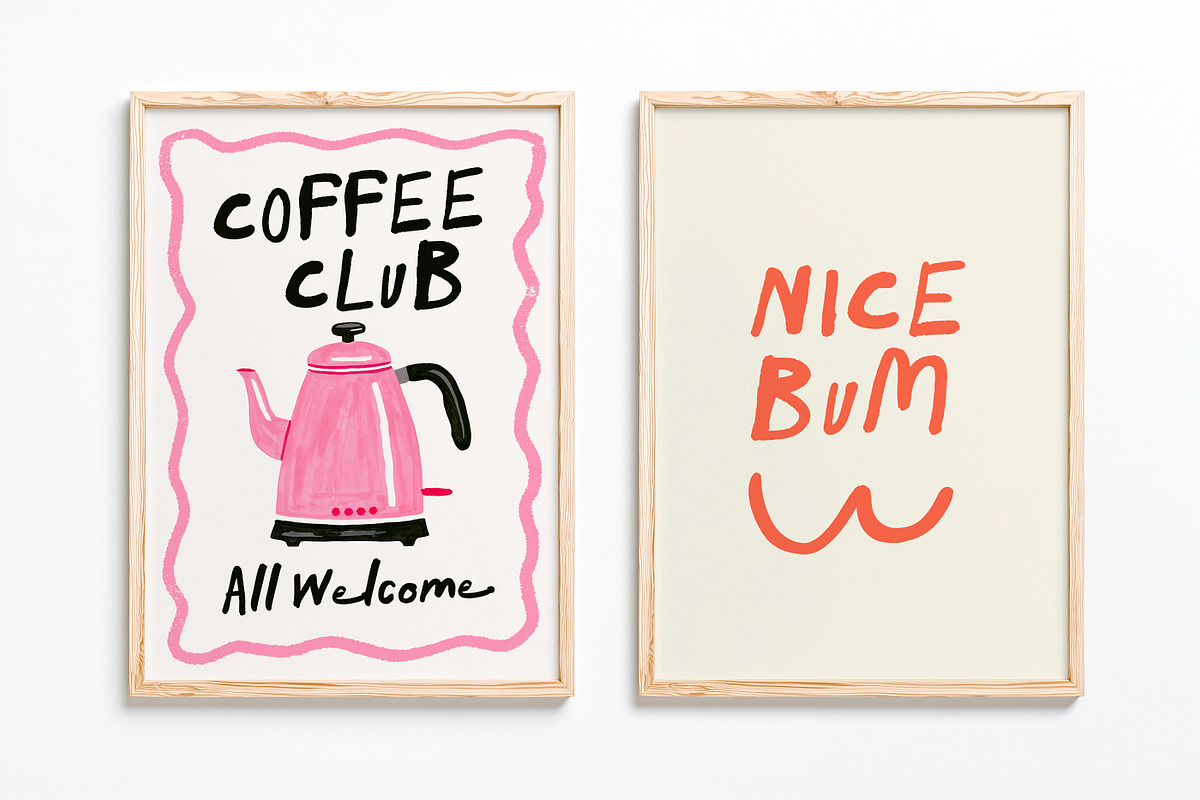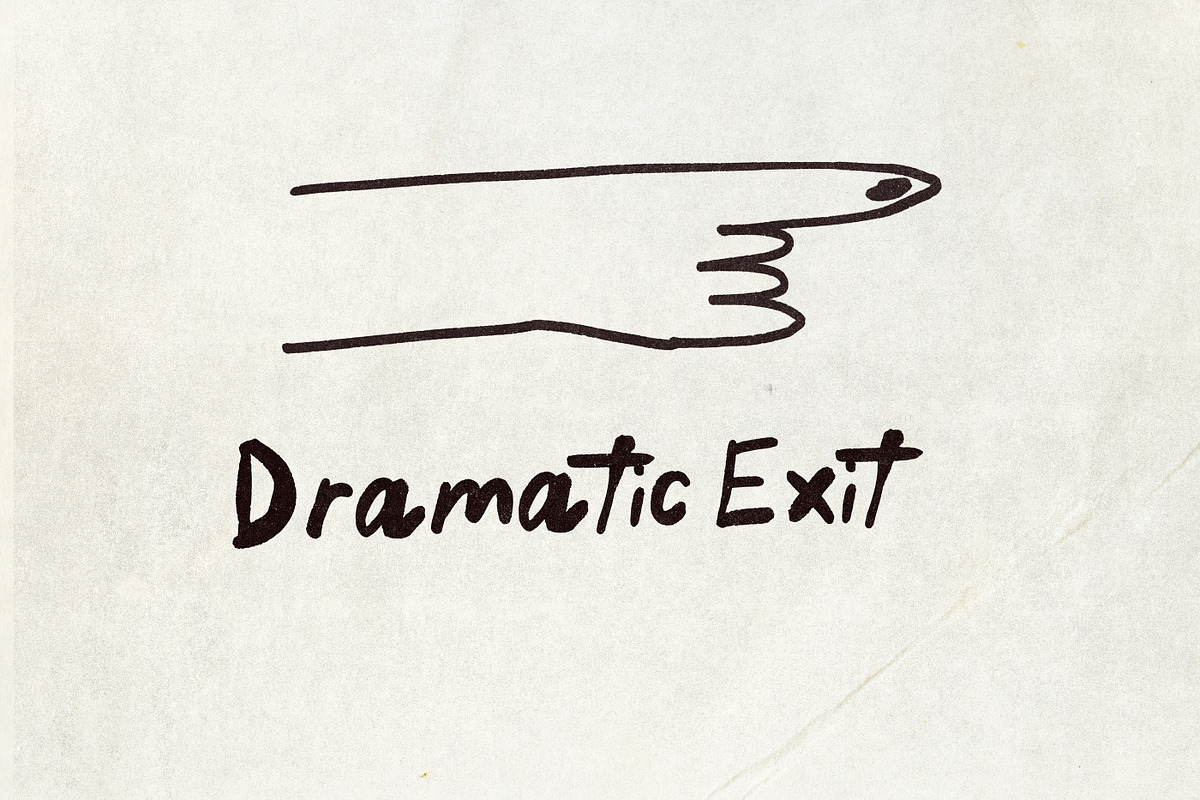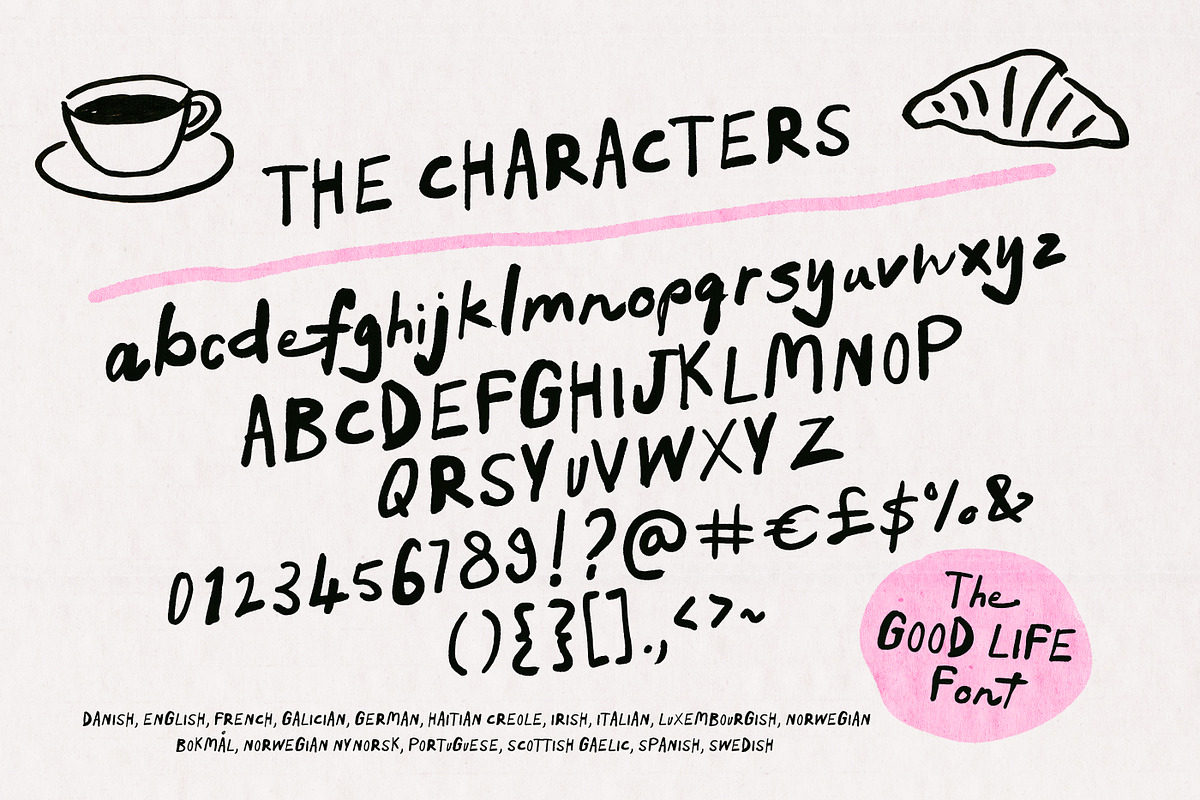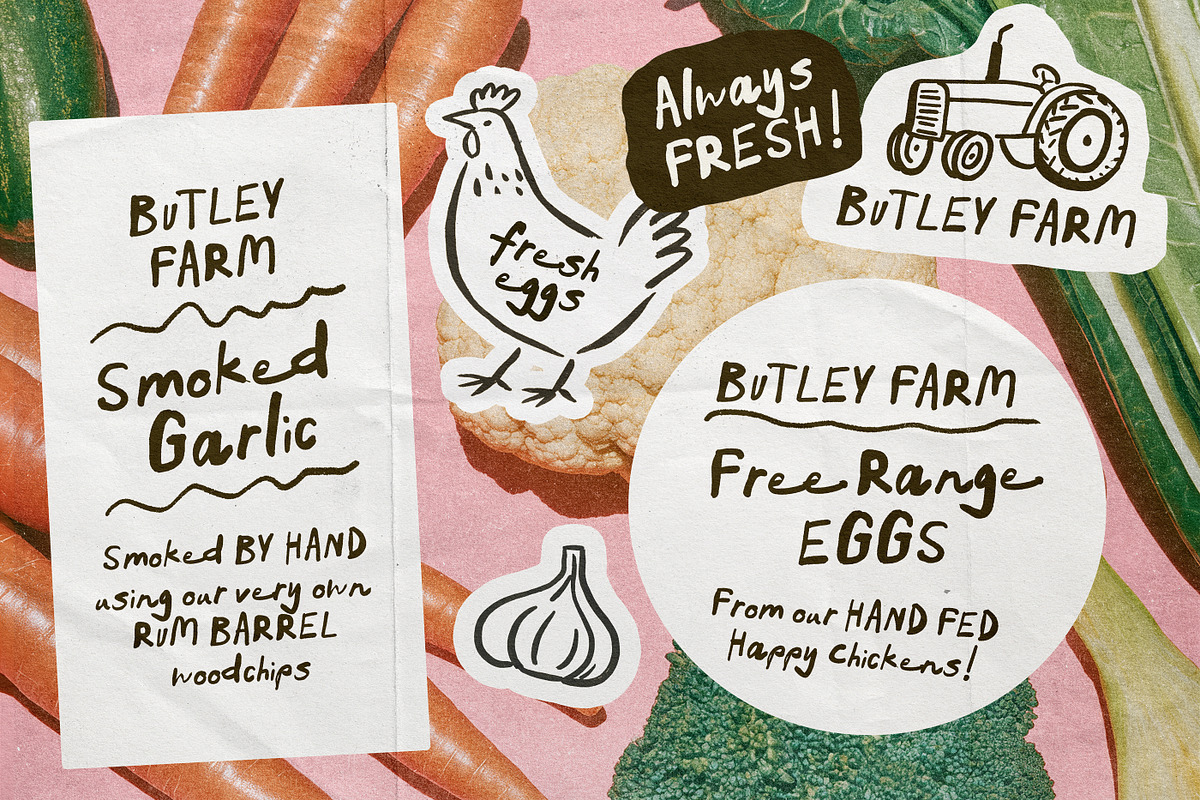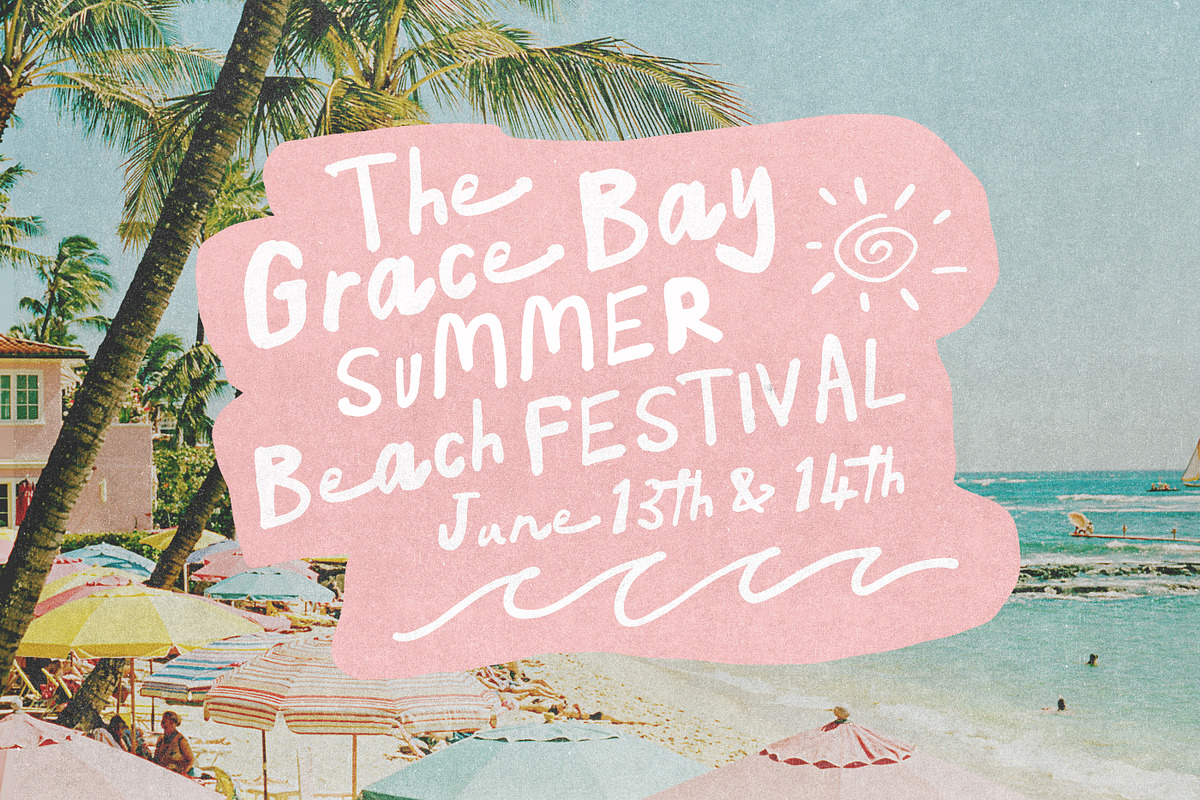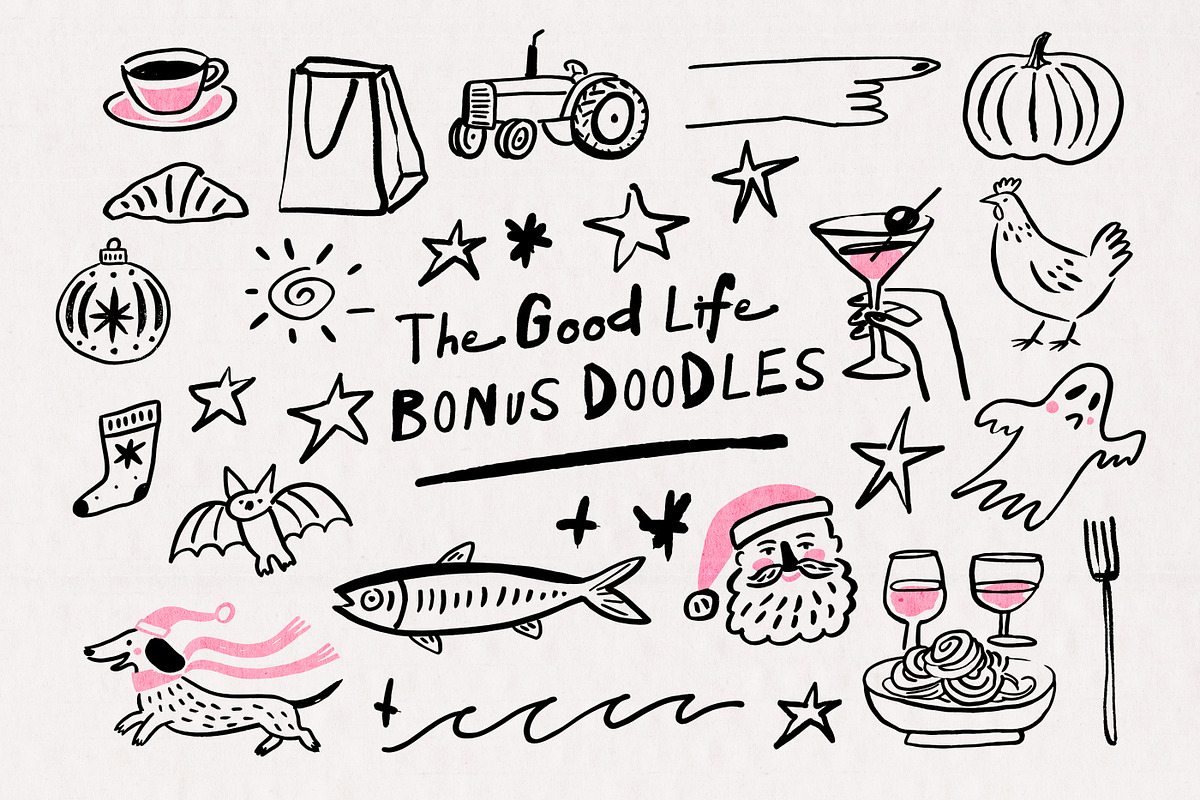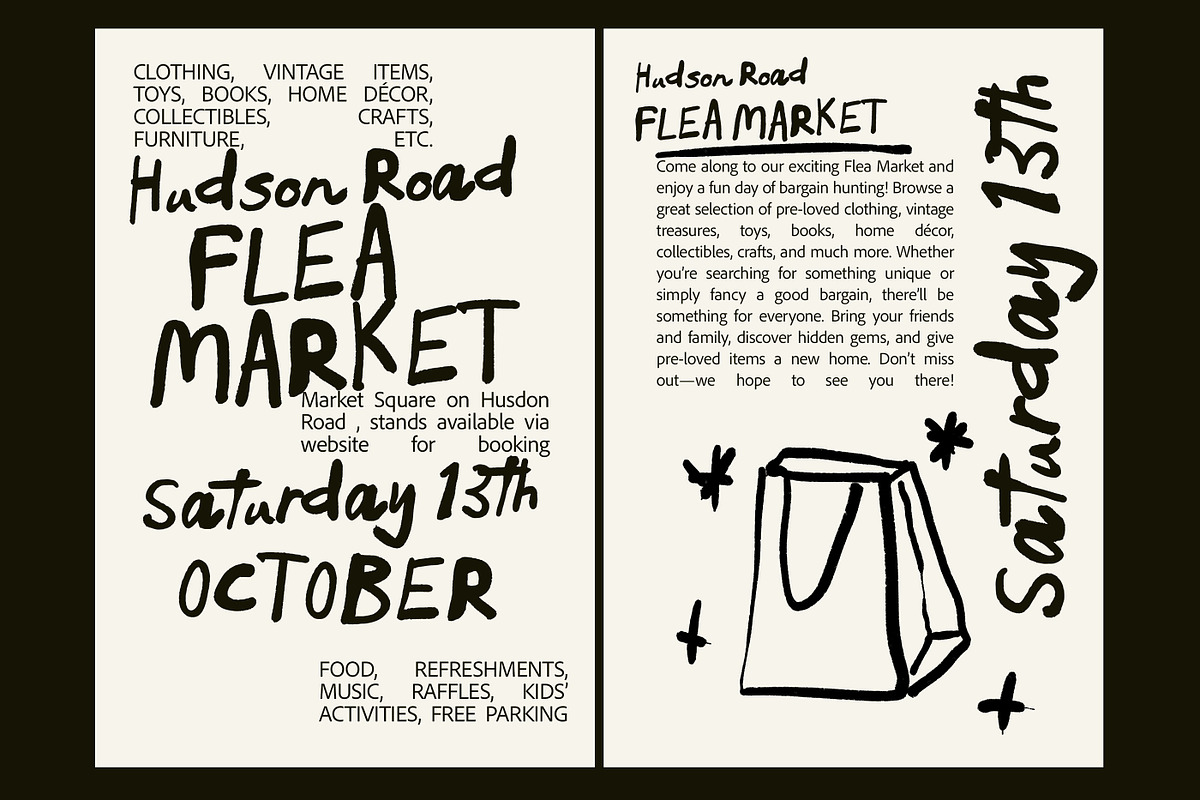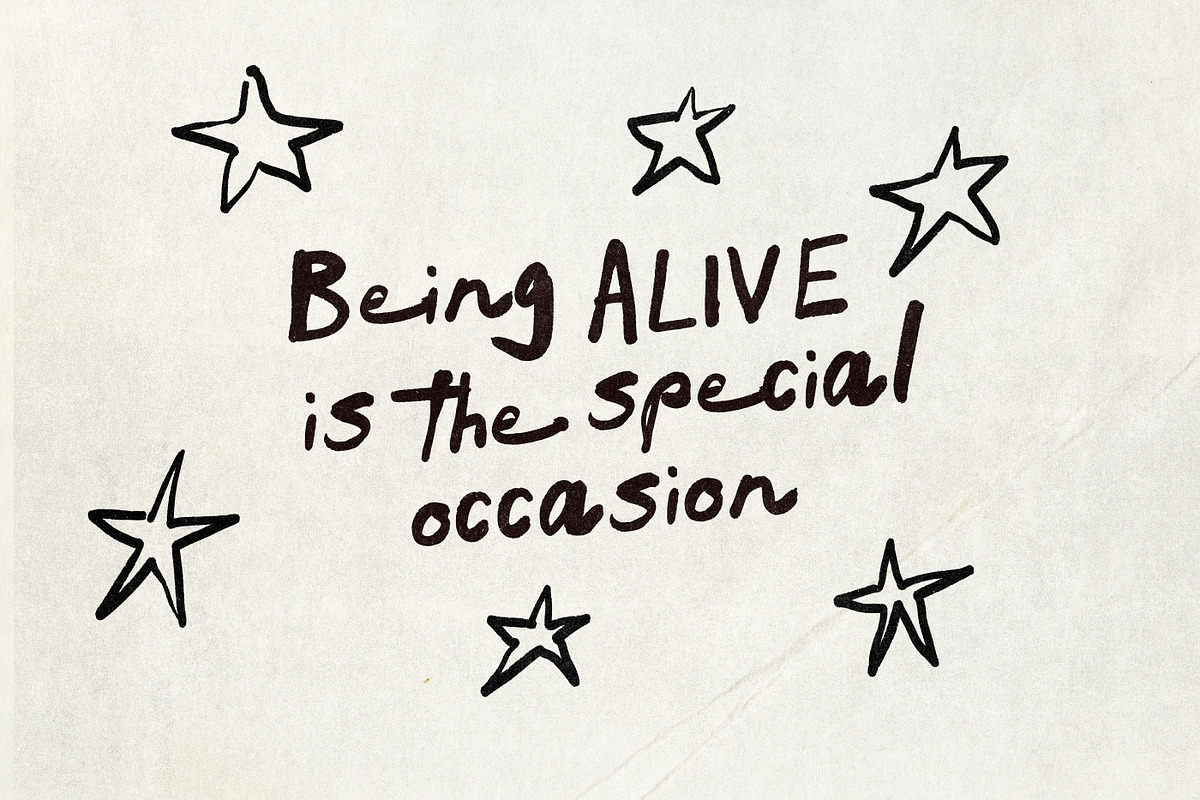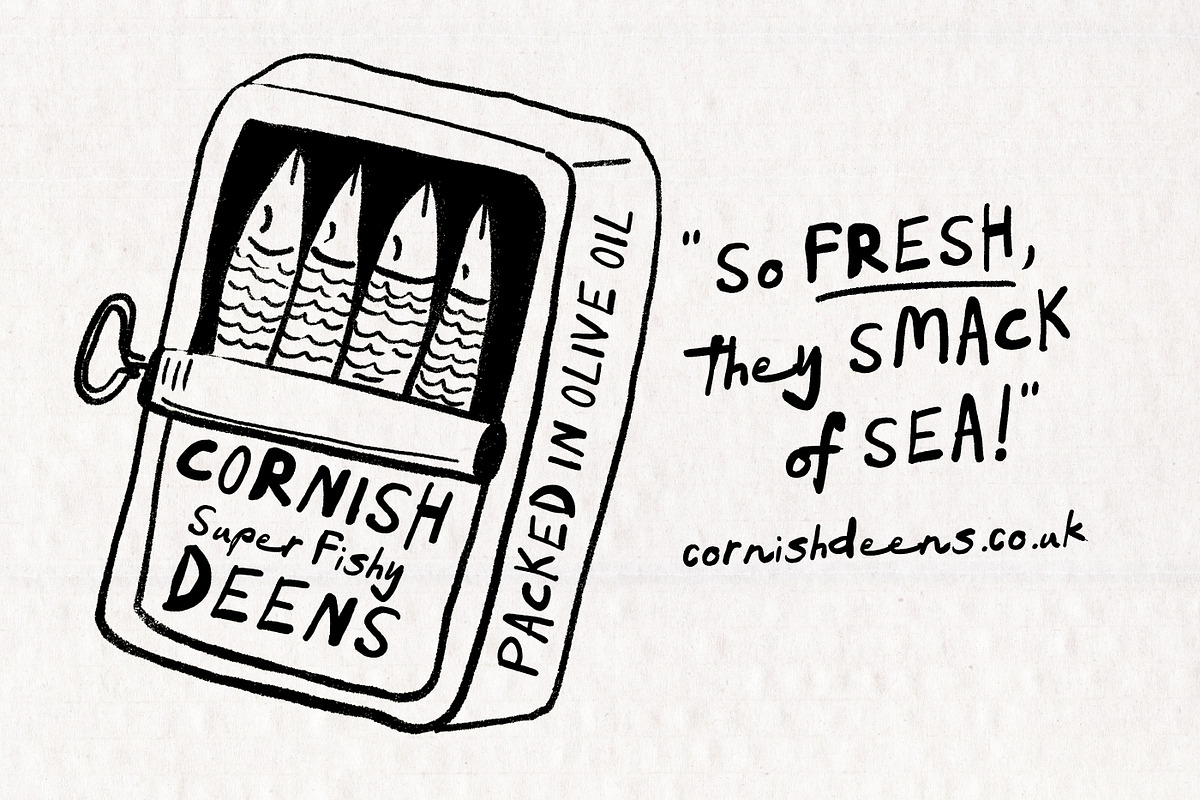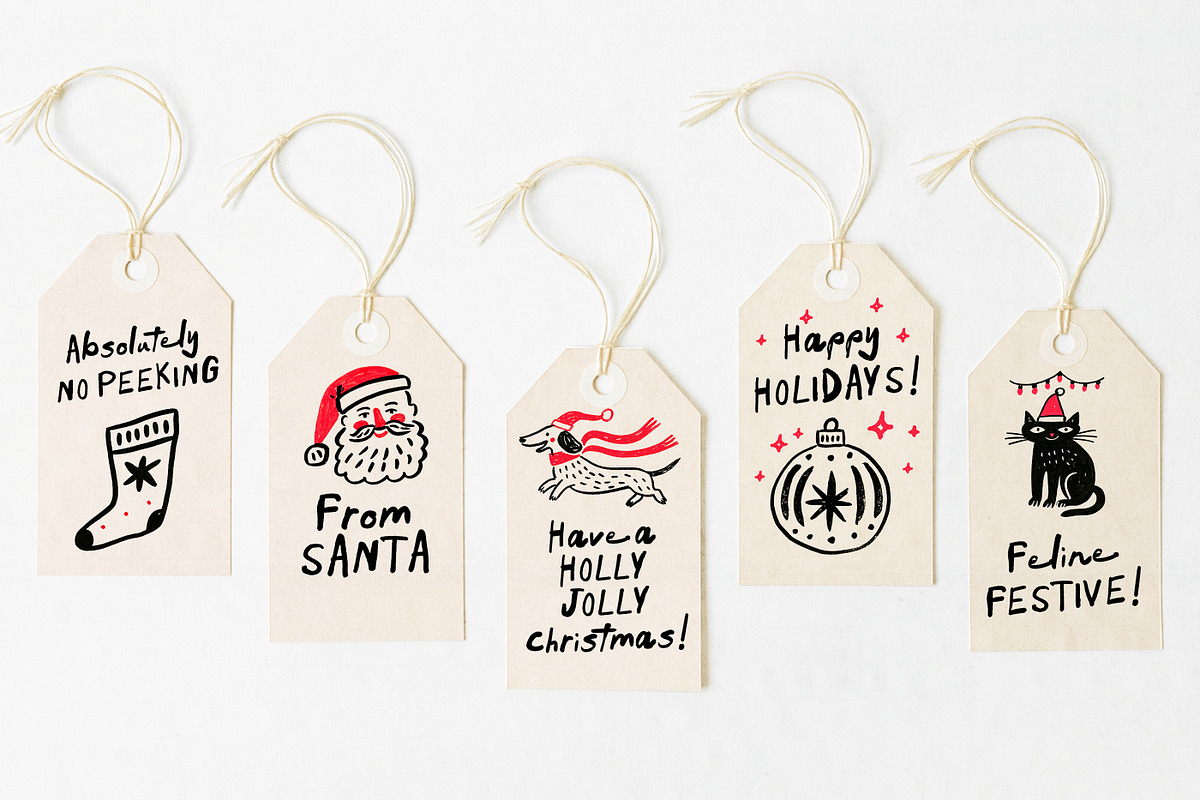
The Good Life Font
Say hello to The Good Life Font! Super wonky, inky and playful, a hand-painted fun font ready to make you smile!
Type your words alternating with the the CAPS and the lower letters to make eye-catching typographic designs! The Good Life Font is one of those super versatile gems! Think Farmers markets, organic food packaging, playful branding, bold typographic poster prints, fun event flyers, quirky labels, stand-out chalk board menus, party invites, greeting cards, kids storybooks and so much more!
Bonus Doodles! I've included some bonus doodles to get your creativity sparked!! See the previews to see which ones are included. Available as PNG, SVG, Illustrator and Eps.